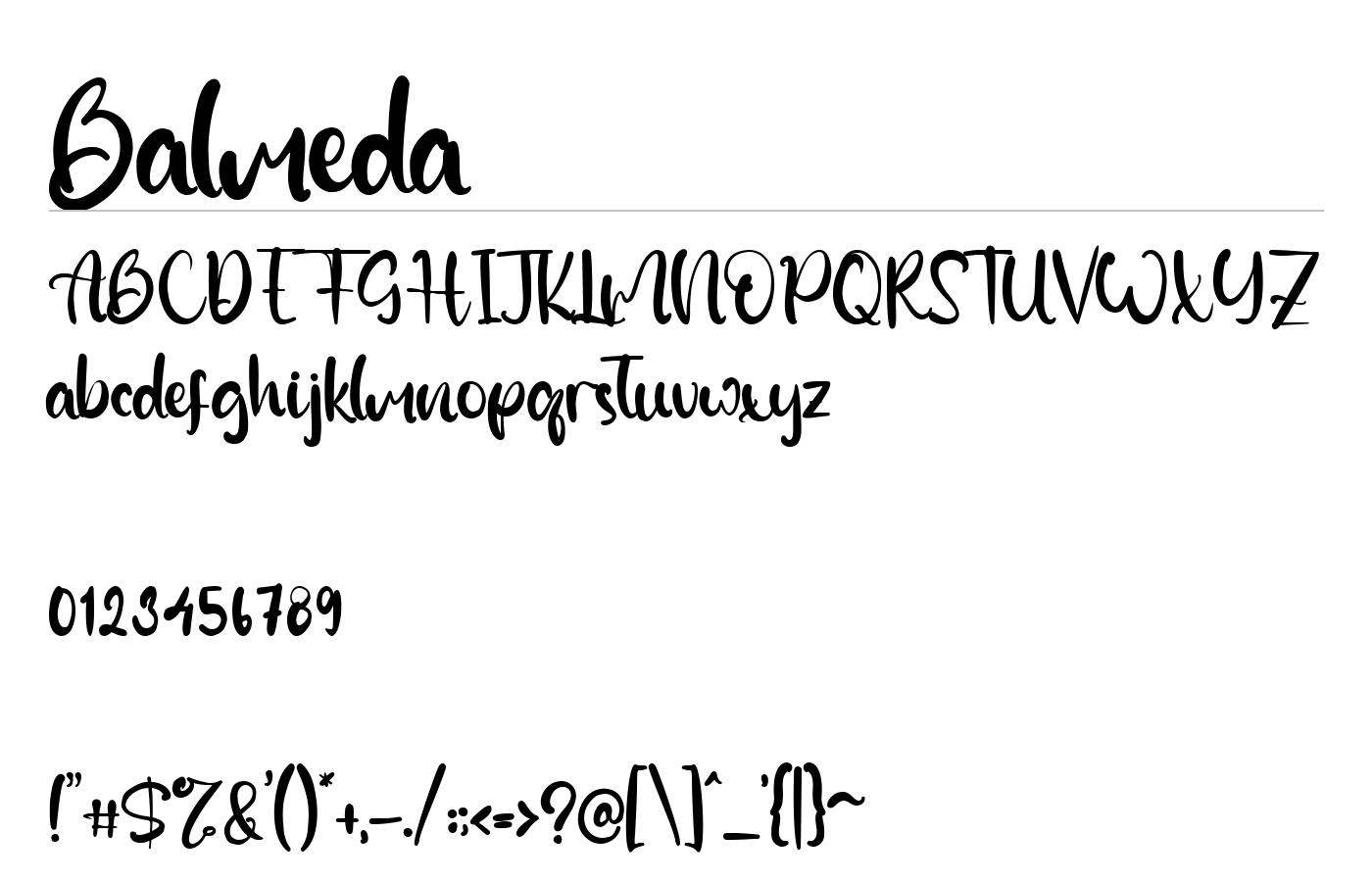
Balmeda is a playful, handwritten script font with a casual and friendly vibe, featuring smooth and rounded strokes with moderate weight and a natural flow. Its lively letterforms, including unique swashes and curls, make it ideal for creative projects, branding, invitations, and fun editorial designs where an informal yet stylish touch is desired. This font works best in contexts that call for warmth and personality rather than formality.
Balmeda Font
About Balmeda Font